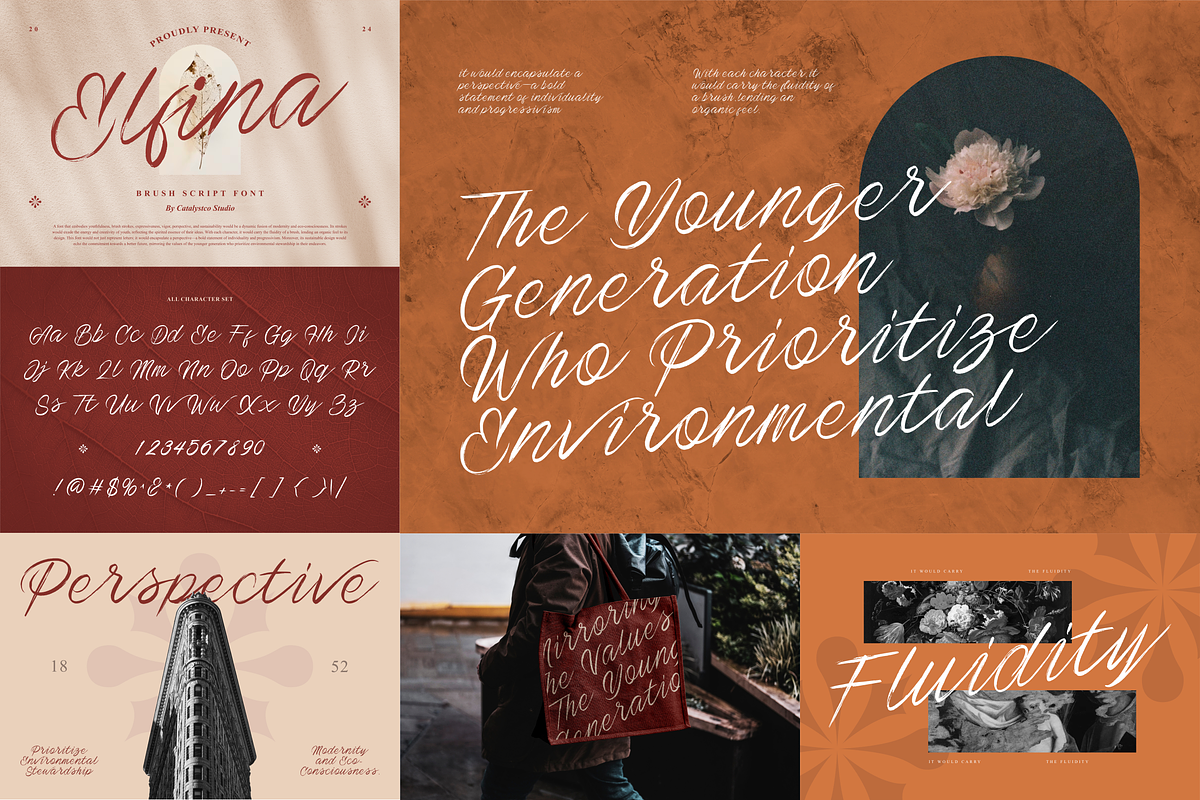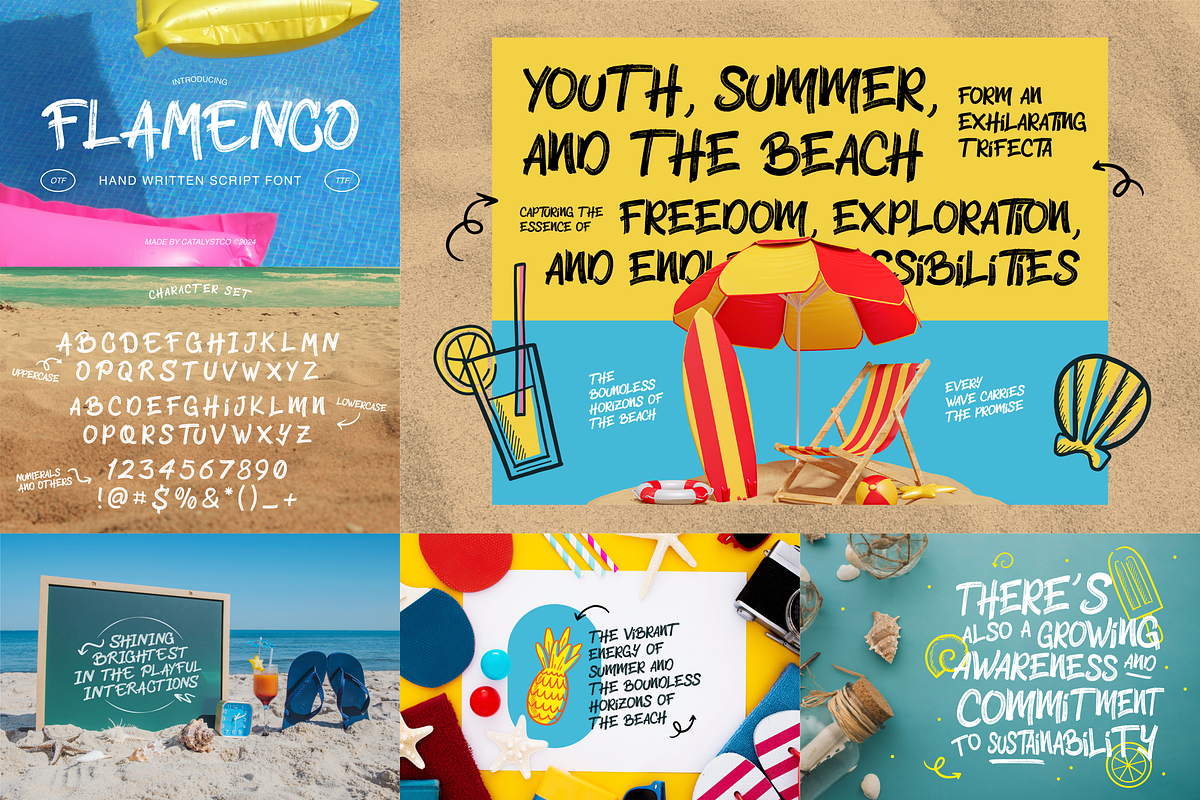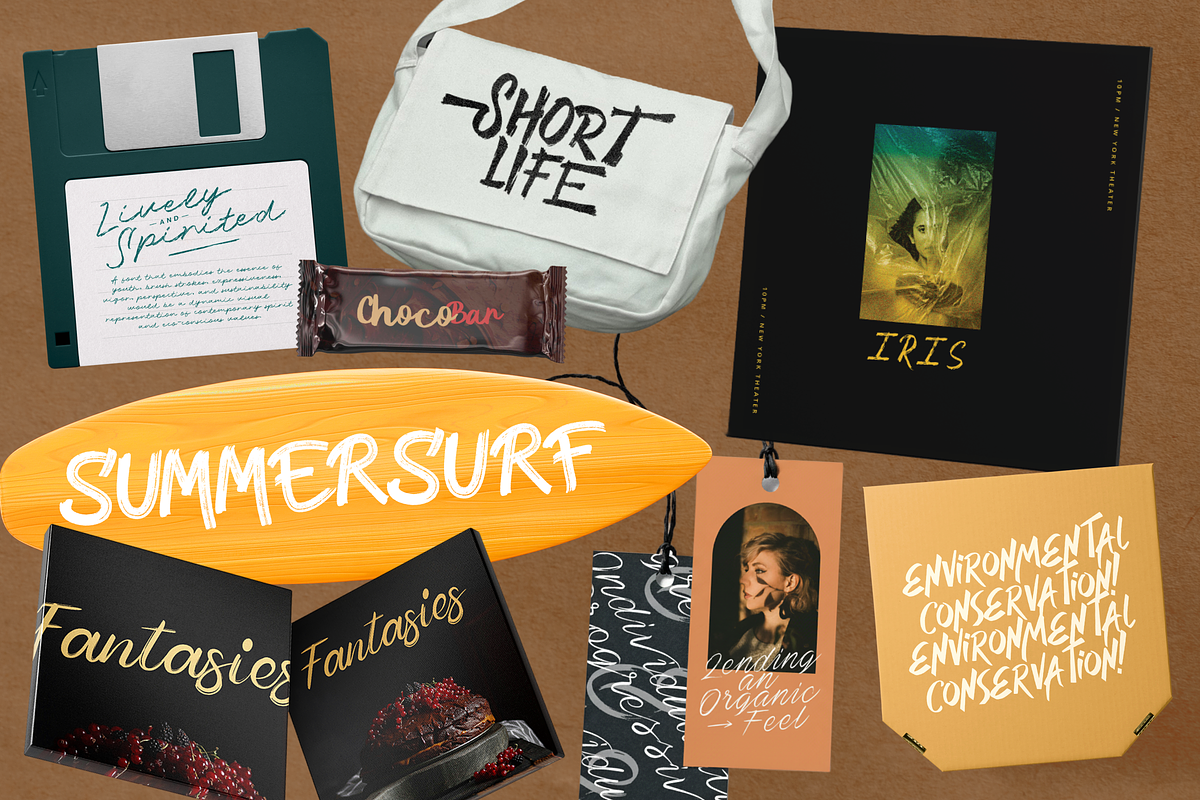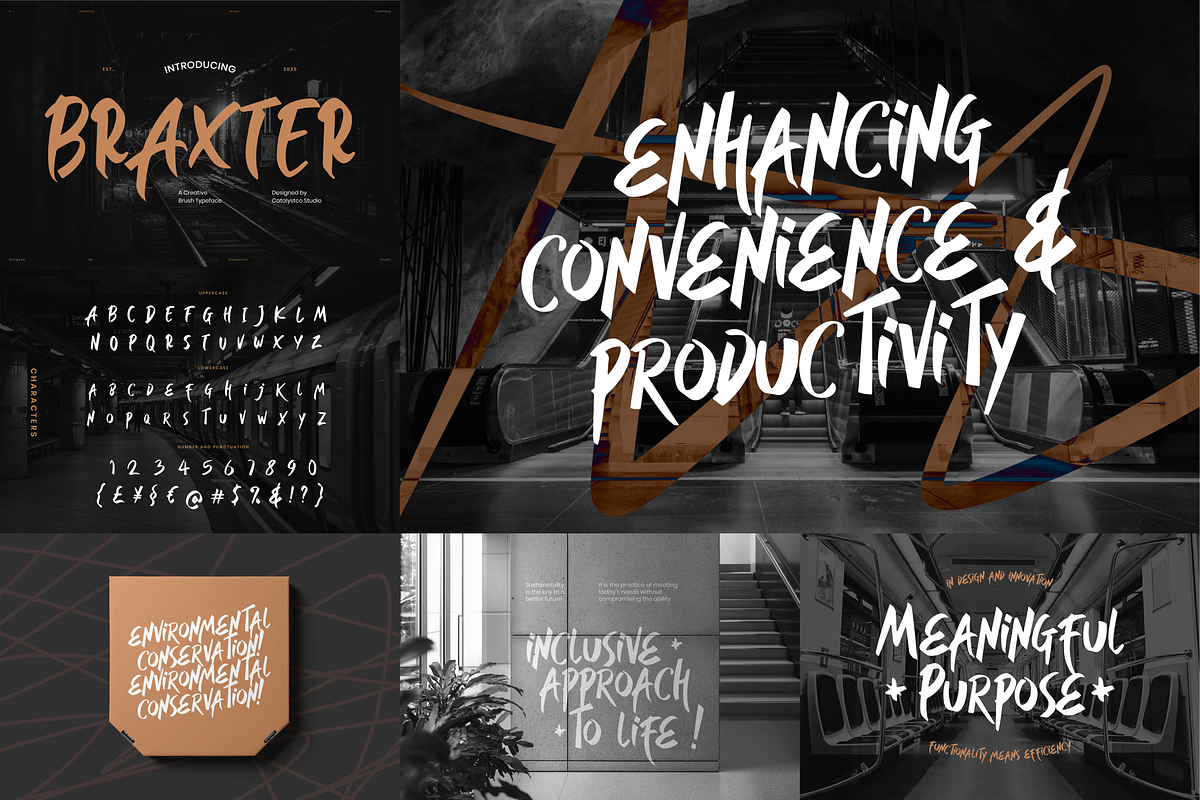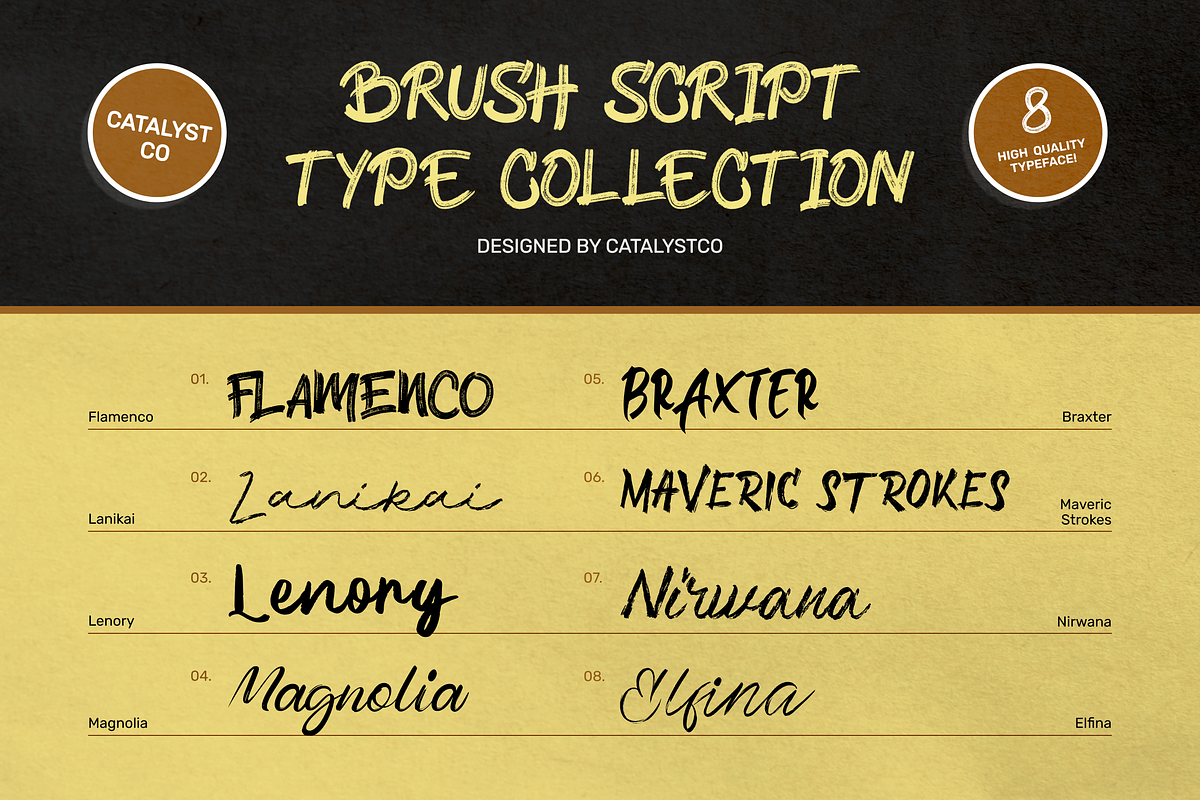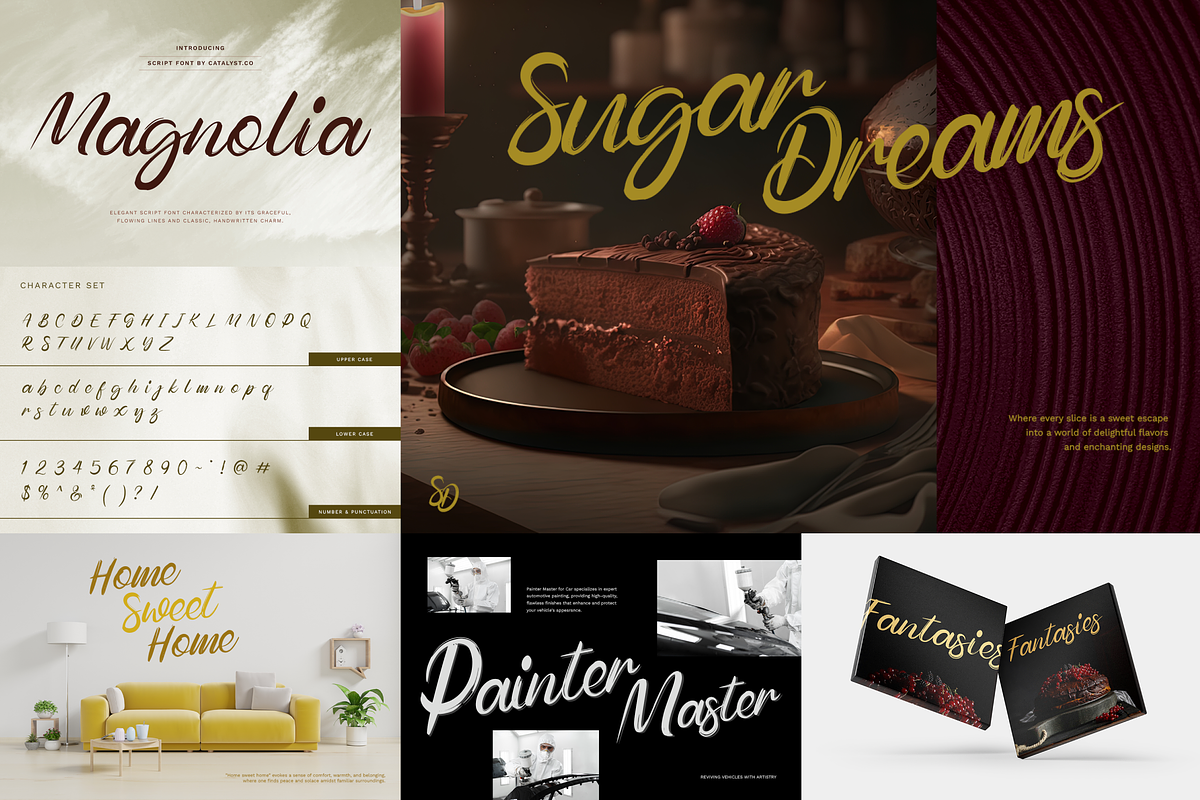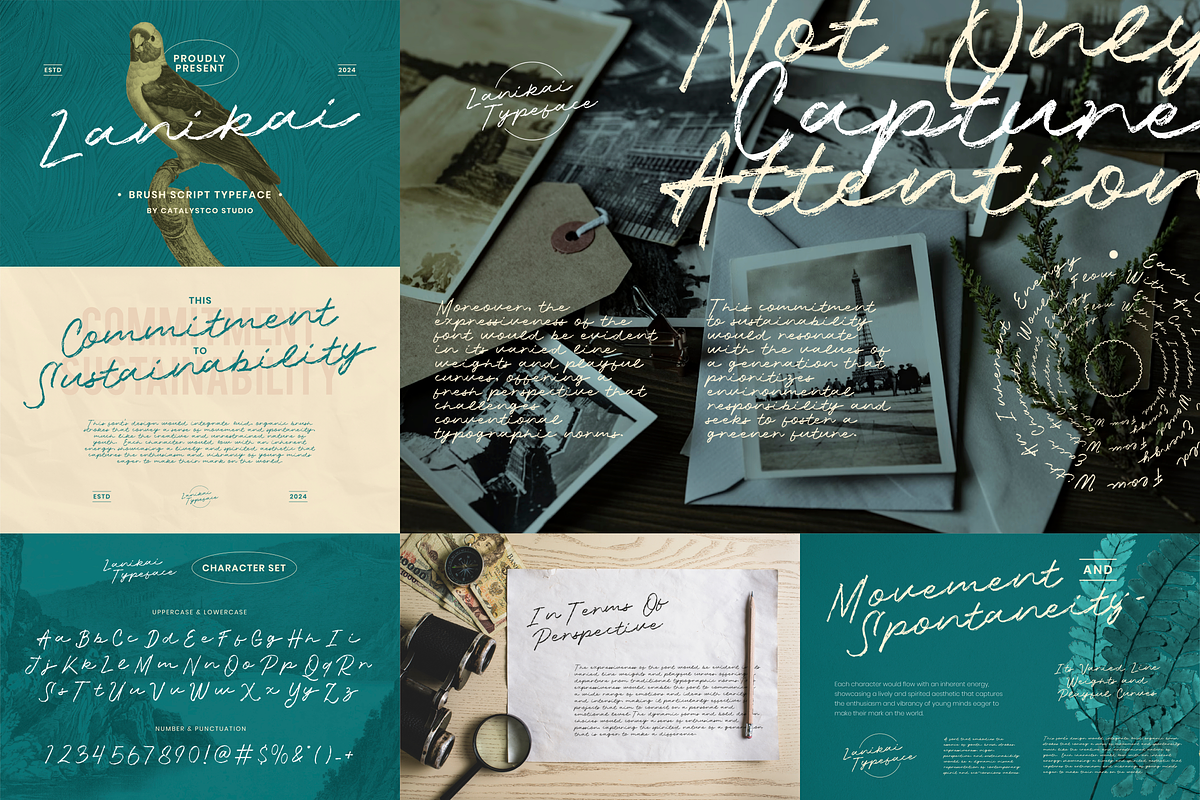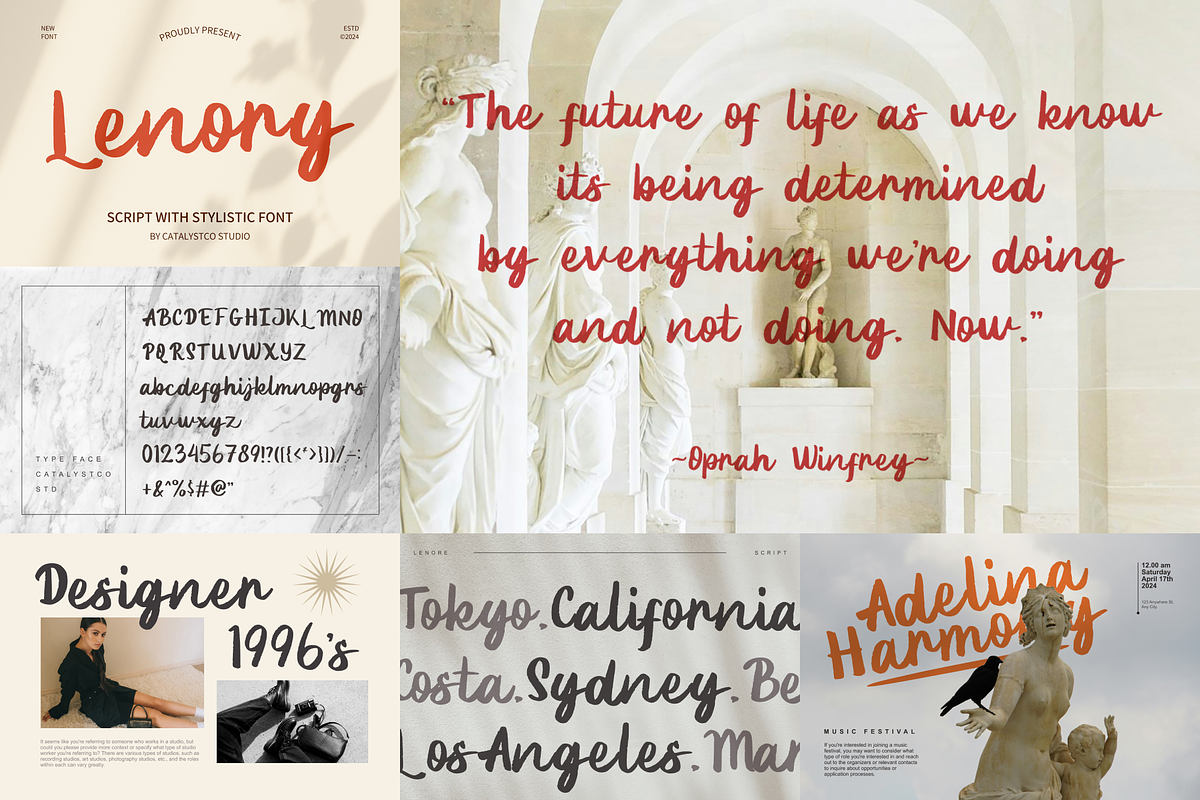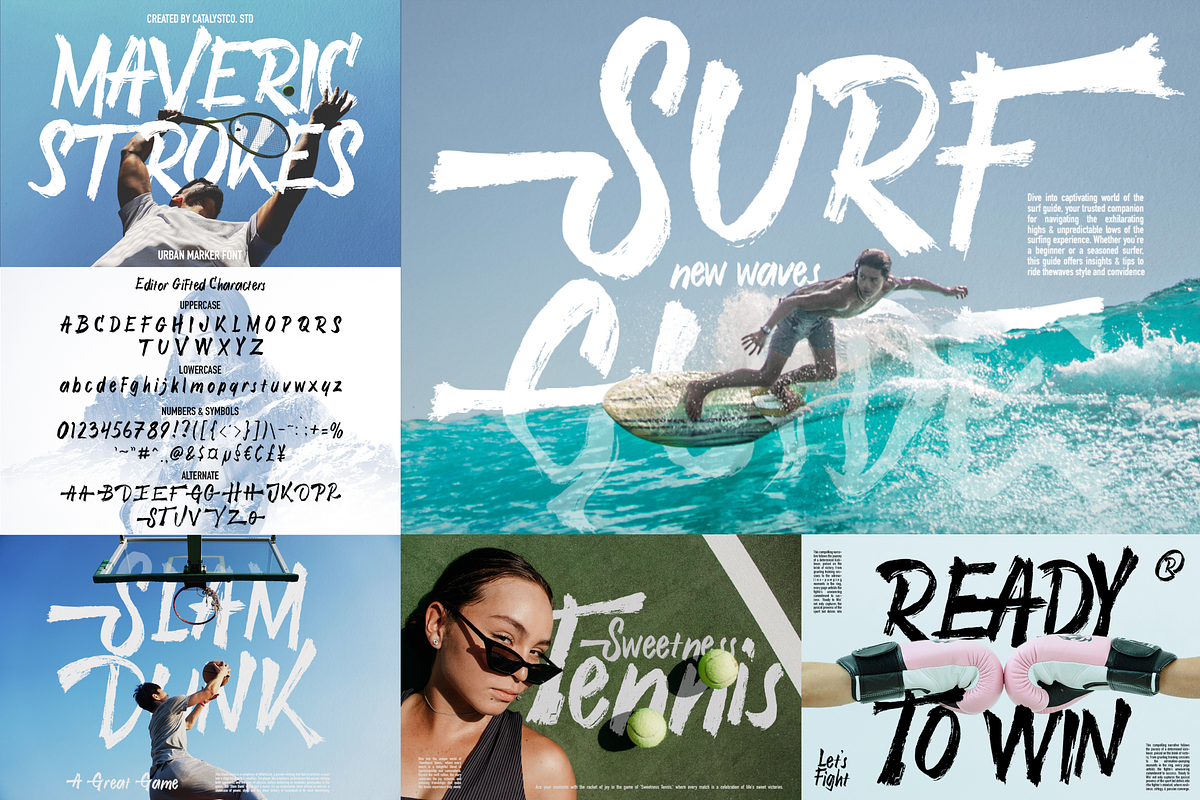
Brush Script Modern Typeface Font
A curated collection of 8 high-quality brush script fonts featuring expressive hand-drawn strokes, natural ink textures, and dynamic lettering styles. This bundle includes multiple script variations ranging from bold brush lettering to smooth handwritten styles, complete with uppercase, lowercase, numerals, punctuation, and stylistic alternates.
This font bundle is highly relevant for designers seeking versatile handwritten styles that add personality and energy to visual projects. It works perfectly for branding, packaging, posters, social media graphics, merchandise, and editorial layouts where a human touch is needed. The mix of bold and smooth brush styles makes it adaptable for both playful and professional contexts, from lifestyle brands to creative campaigns and event promotions.
- Expressive brush strokes with natural ink texture and hand-painted feel
- Irregular edges and pressure variation for authentic handwritten character
- Dynamic baseline flow creating energetic and organic movement
- Mix of bold and smooth stroke styles for versatile visual impact
- Casual yet stylish letterforms with a modern urban script aesthetic
- Brand identity projects that need expressive, human, and energetic personality
- Packaging design for food, beverages, and lifestyle products with handcrafted appeal
- Social media graphics and marketing visuals that require bold typography
- Poster design, event promotions, and creative campaigns with strong visual impact
- Merchandise such as tote bags, apparel, and stickers with casual handwritten style
Unleash bold expression in your design with this Brush Script Collection Font